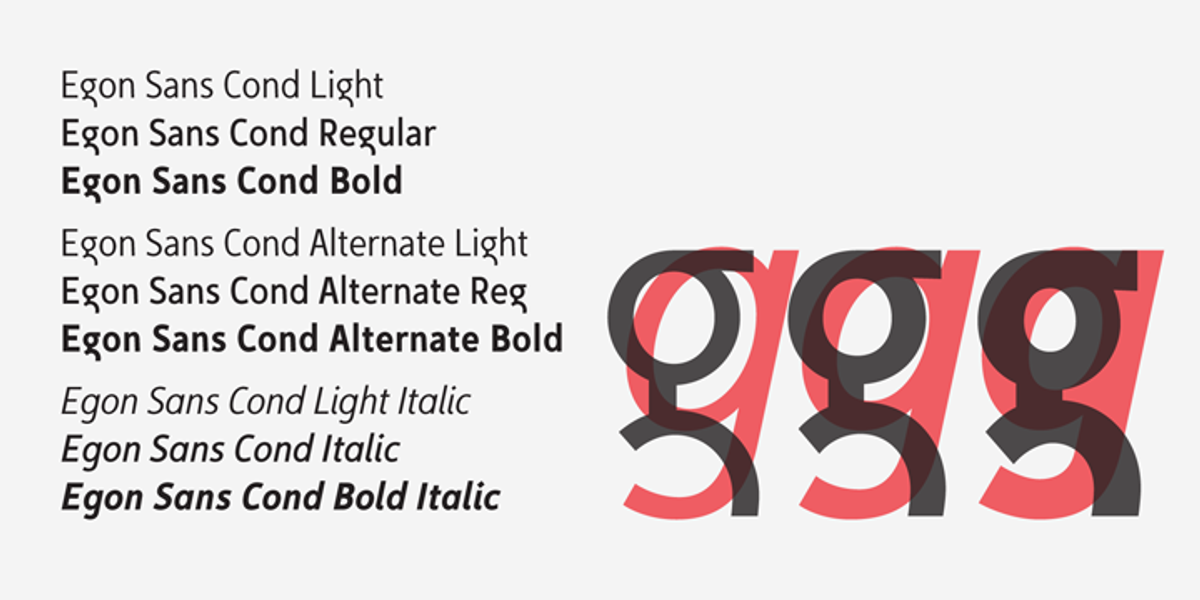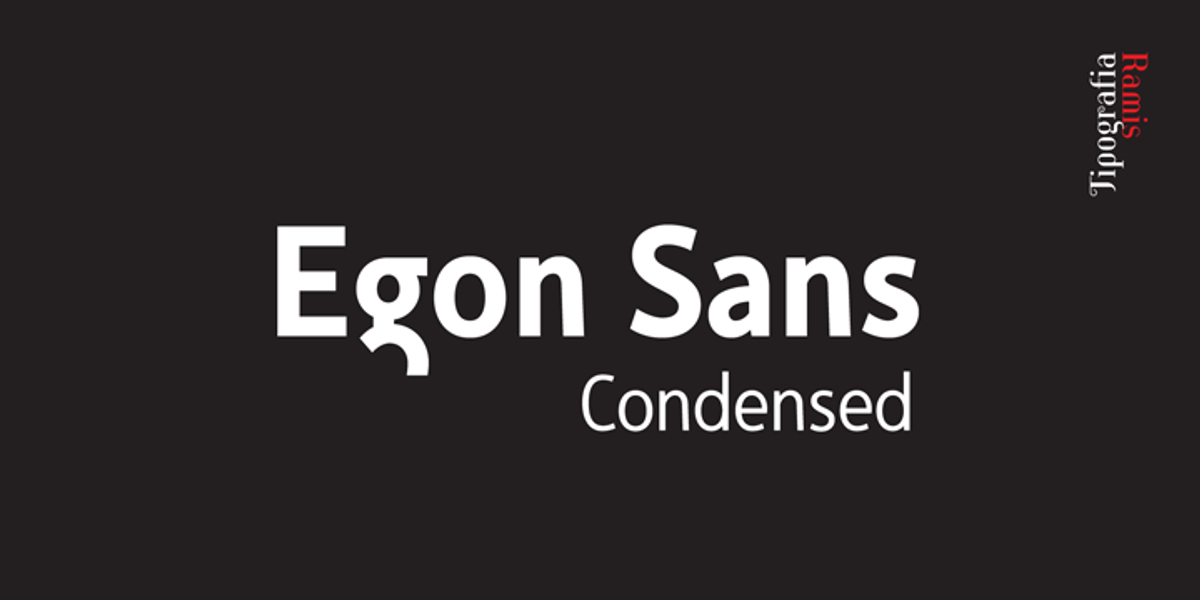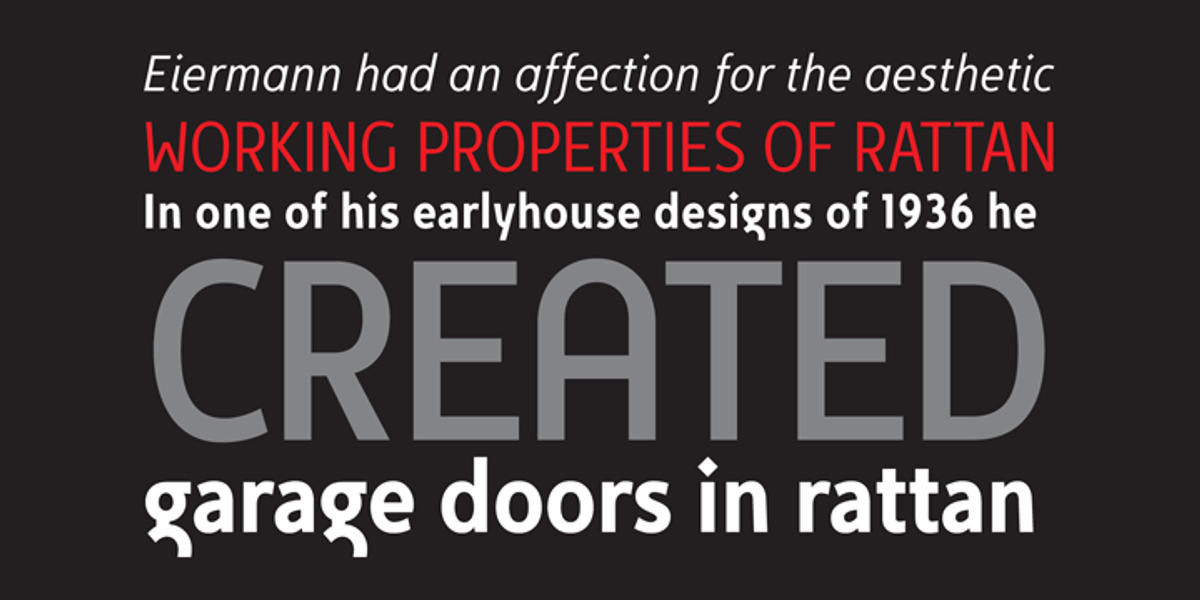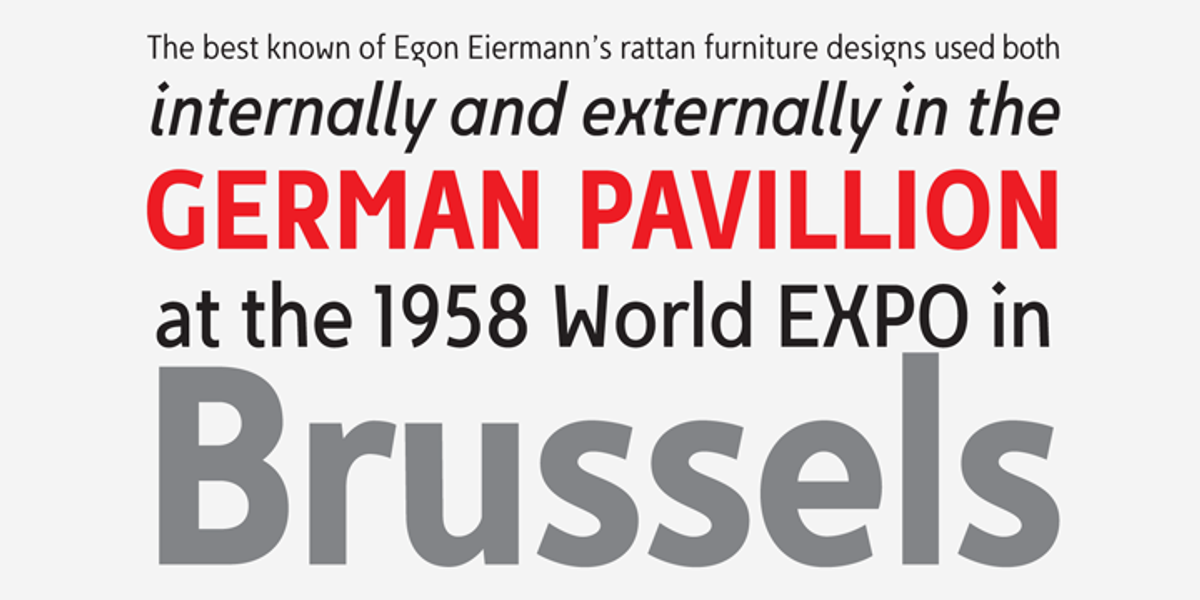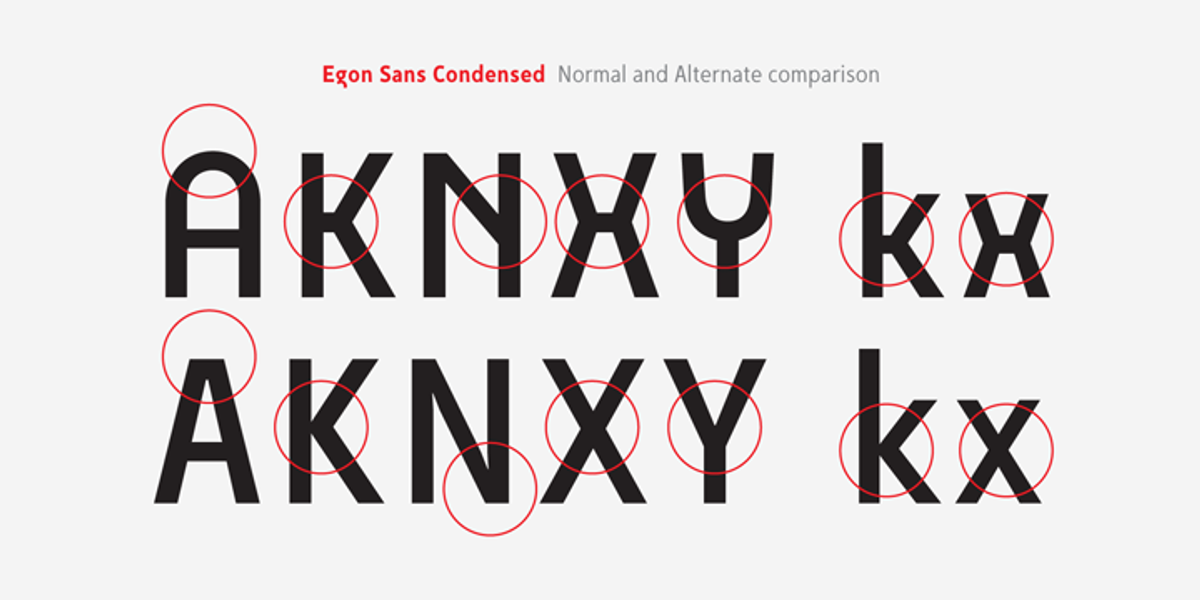
Egon Sans Cond
Egon Sans Condensed is a geometric sans serif typeface family available in nine styles: light, regular, and bold weights, each with roman and italic variants. It also offers three additional roman alternatives. The font is well-suited for a variety of applications, including logos, headlines, posters, and even paragraph text due to its clear readability.